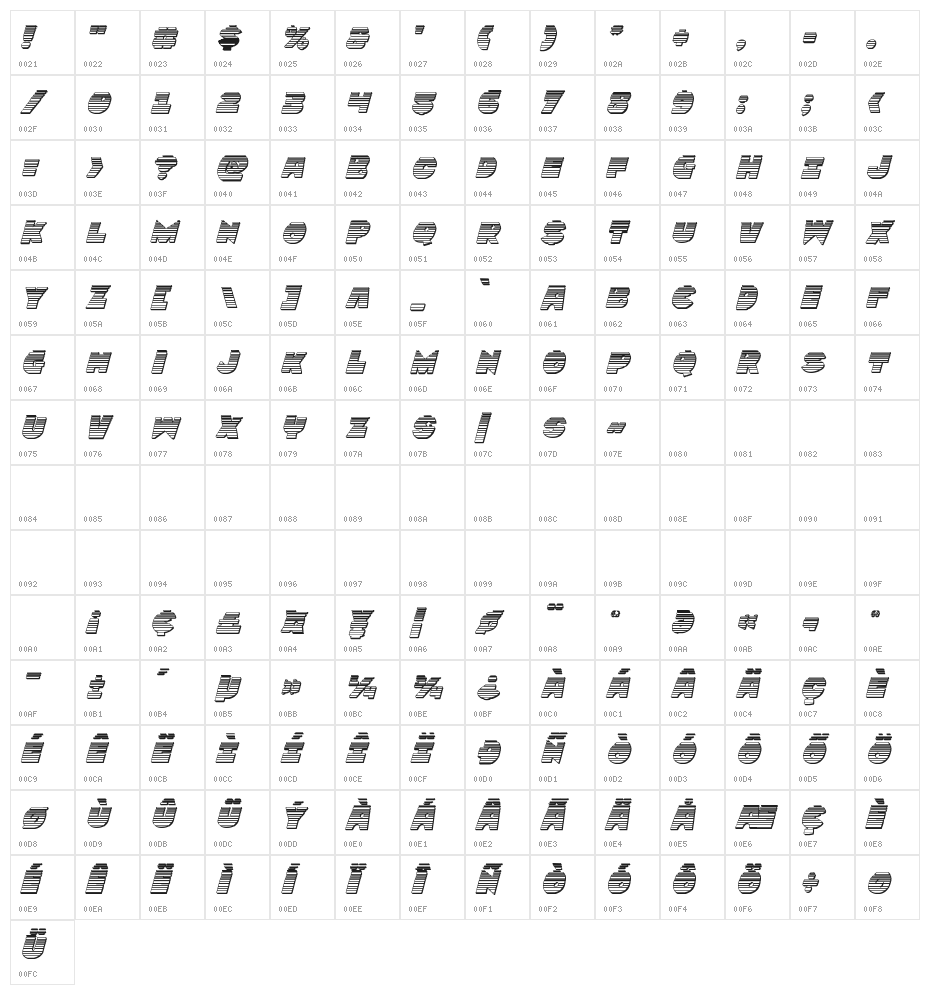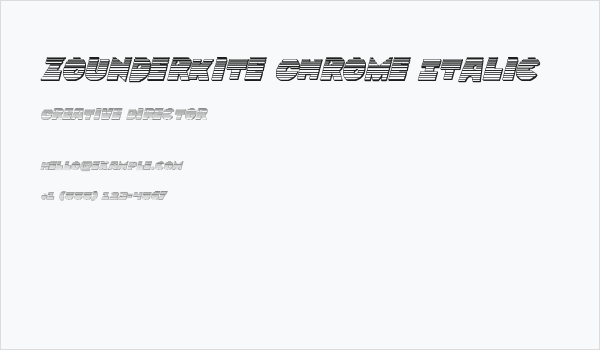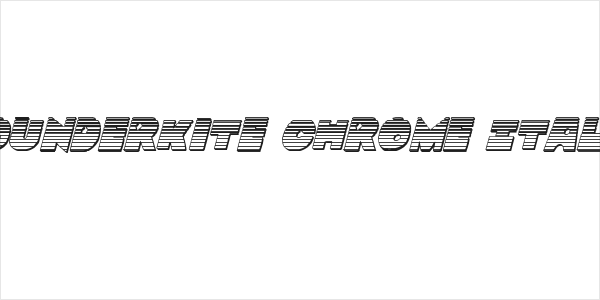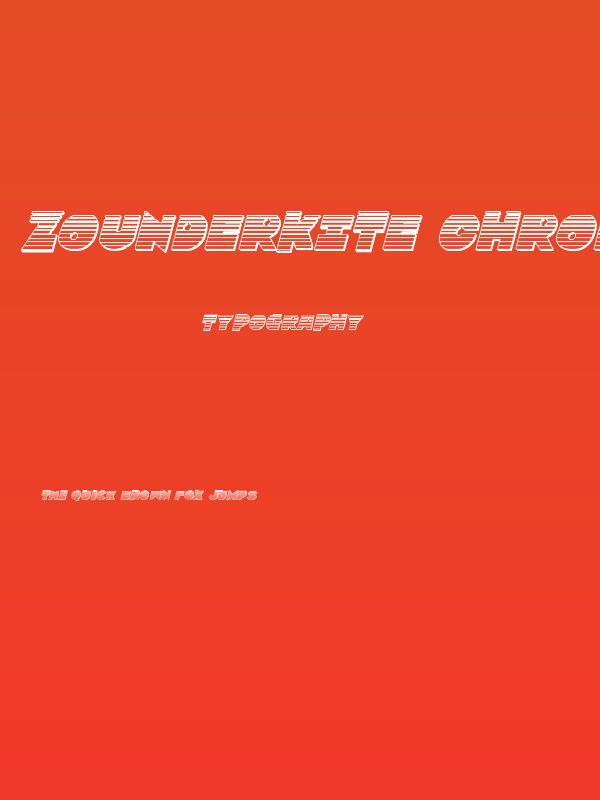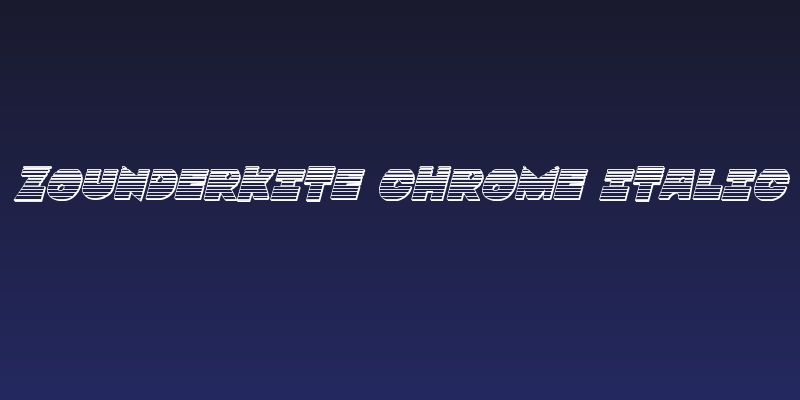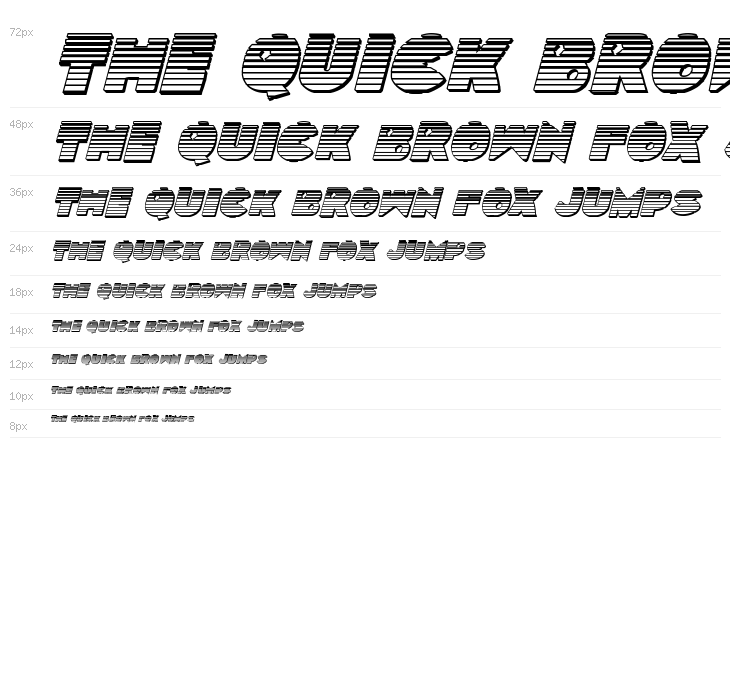
Zounderkite Chrome Italic Font
Zounderkite Chrome Italic Description
This font features a bold, decorative style with a unique striped pattern running horizontally across each character. The uppercase and lowercase letters maintain a consistent width, giving the font a uniform appearance. The characters are slightly slanted, adding a dynamic and italicized feel. The numbers and special characters follow the same design, ensuring cohesion across all elements. The font's playful and eye-catching design makes it suitable for creative and modern projects.